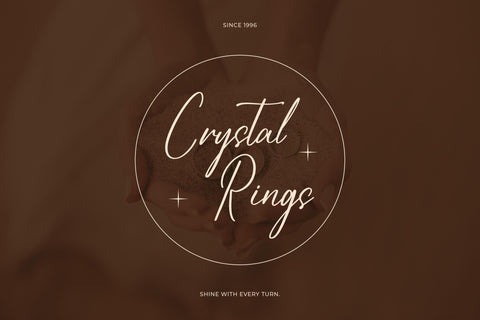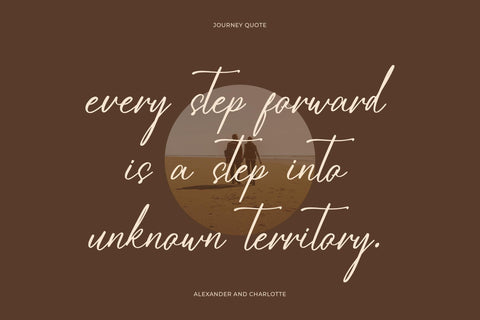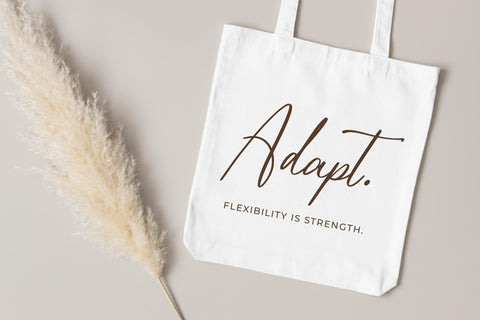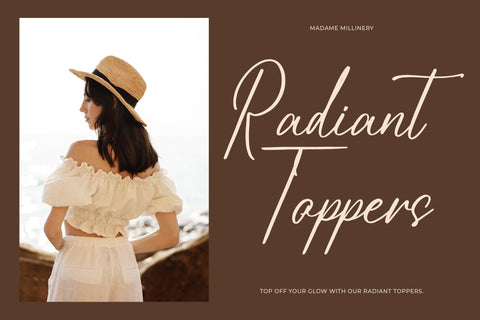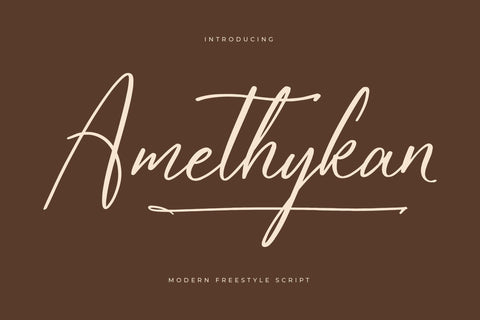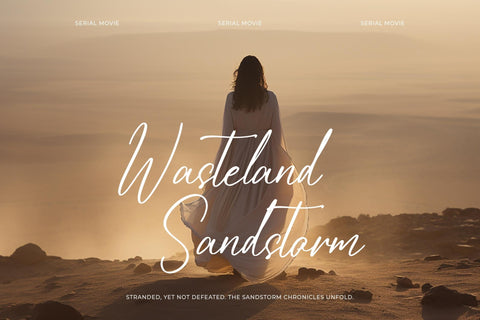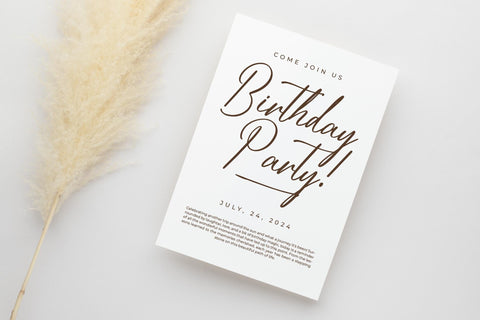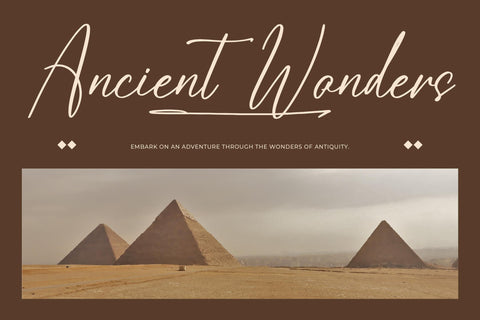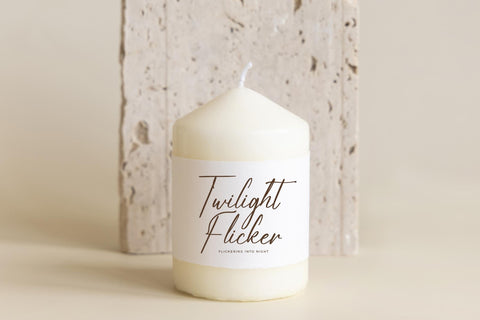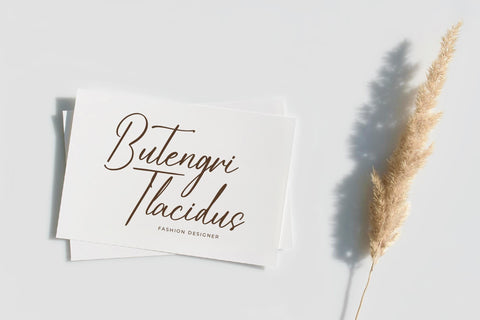
Amethykan - Modern Freestyle Script
Amethykan - Modern Freestyle Script , from Letterena, is a Luxury Serif font, suitable for any projects such as: logos, branding projects, homeware designs, product packaging, mugs, quotes, posters, shopping bags, t-shirts, book covers, name card, invitation cards, greeting cards, label, photography, watermark, special events, and all your other luxury and beautiful projects that need a Luxury Script taste.